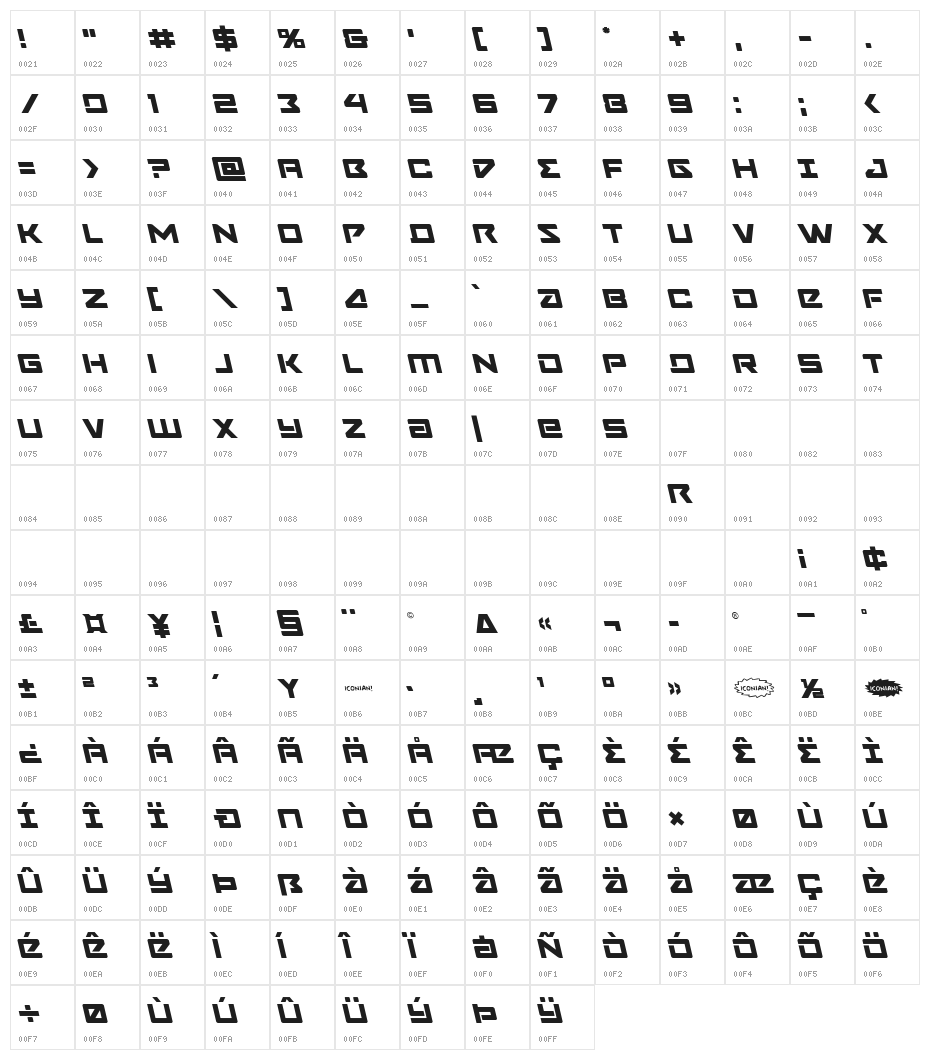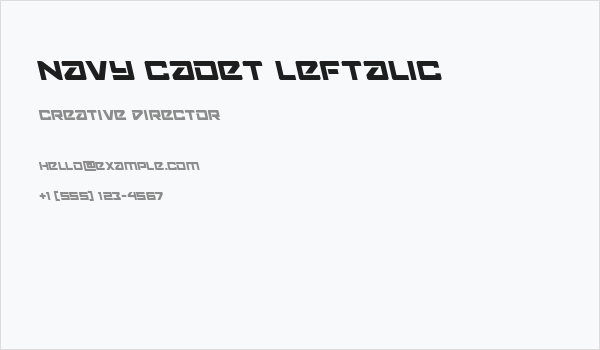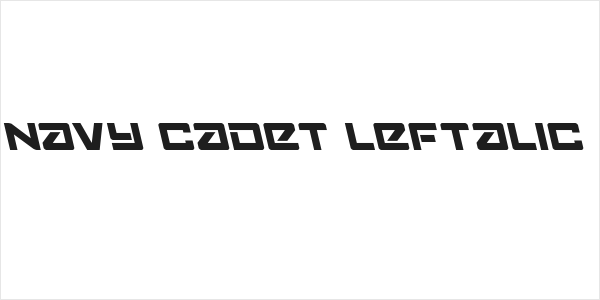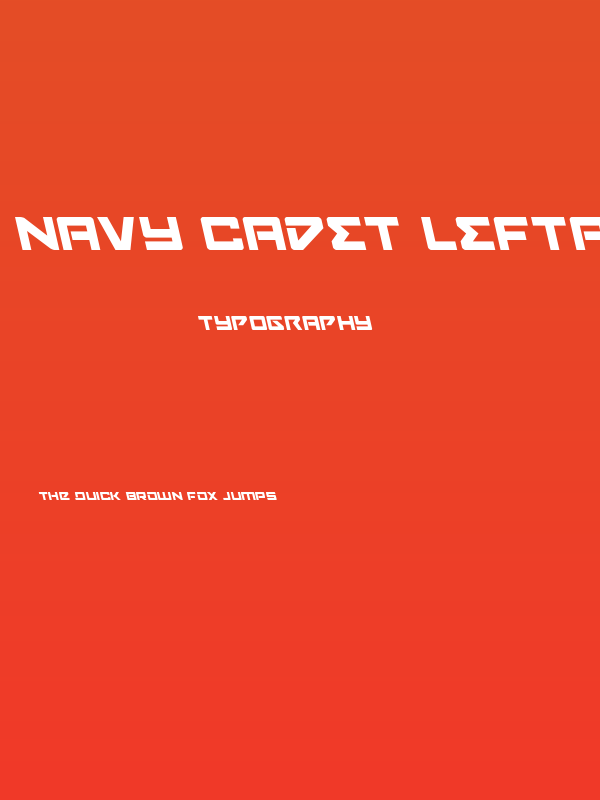
Navy Cadet Leftalic Font
Navy Cadet Leftalic Description
This font features a bold, angular design with a futuristic and geometric aesthetic. The characters are sharply defined with a distinct slant to the left, giving it a dynamic and forward-moving appearance. The uppercase and lowercase letters maintain a consistent style, with strong, thick strokes and minimal contrast. The numbers and special characters follow the same bold and angular design, ensuring uniformity across all glyphs. The overall style is modern and assertive, making it suitable for projects that require a strong visual impact.
Proposed ProjectsIdeal for sci-fi themed designs, video game graphics, technology branding, and dynamic posters.